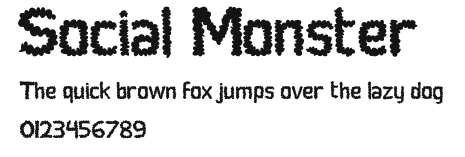
Social Monster Preview
• Font Name: Social Monster
• Full Font Name: Social Monster Normal
About Social Monster.ttf
Social Monster.ttf is a modern, elegant sans-serif font designed for ultimate readability and visual harmony. Perfect for branding, headlines, web design, and print materials.